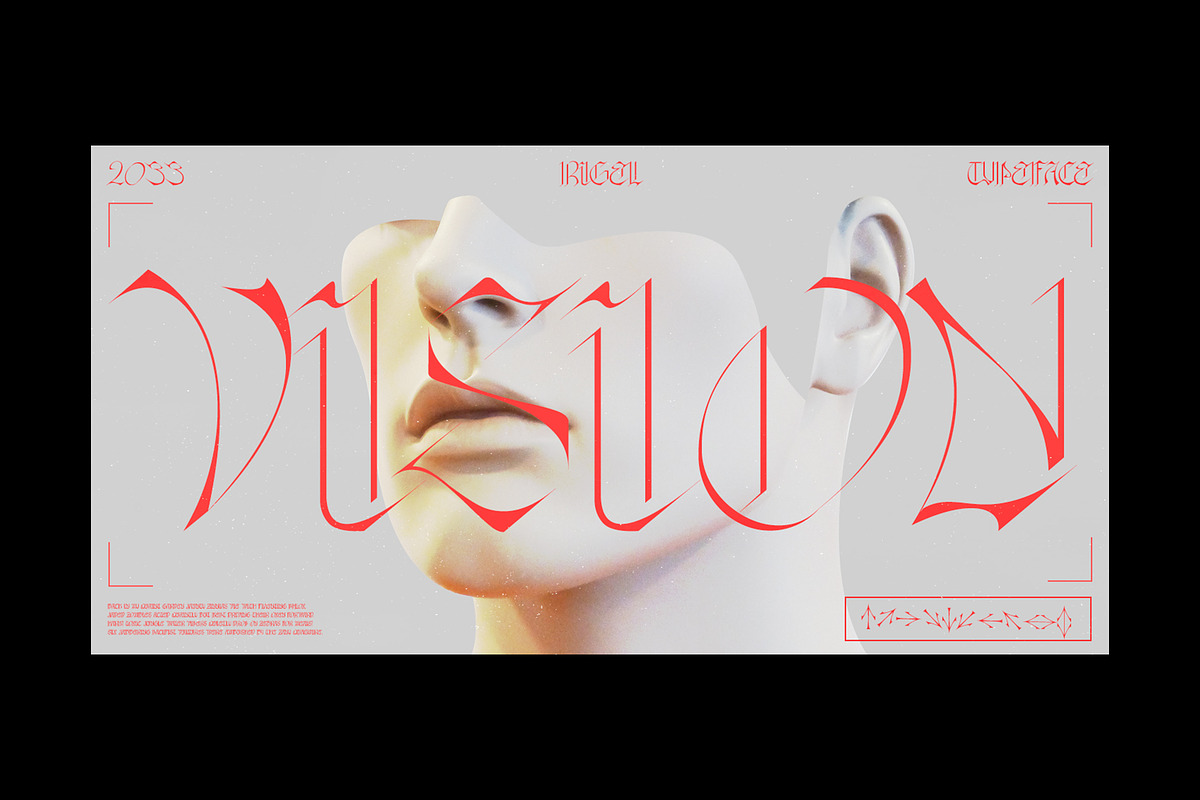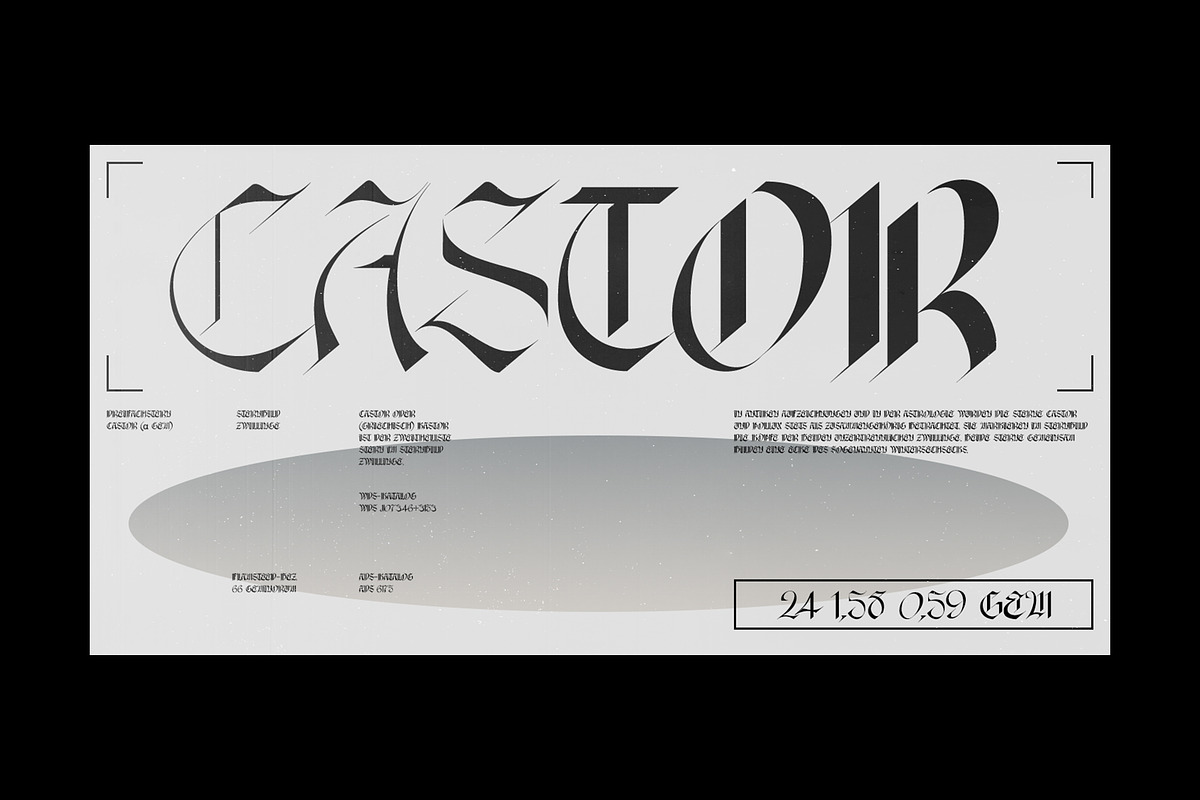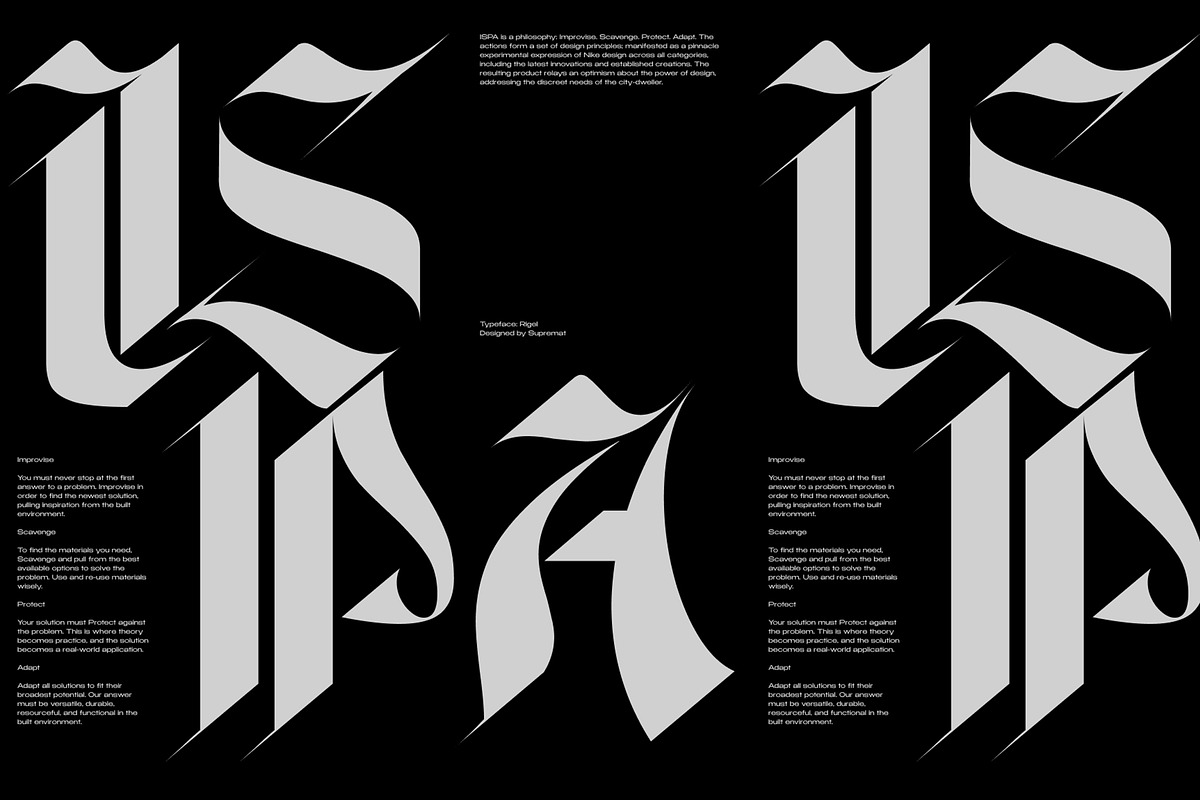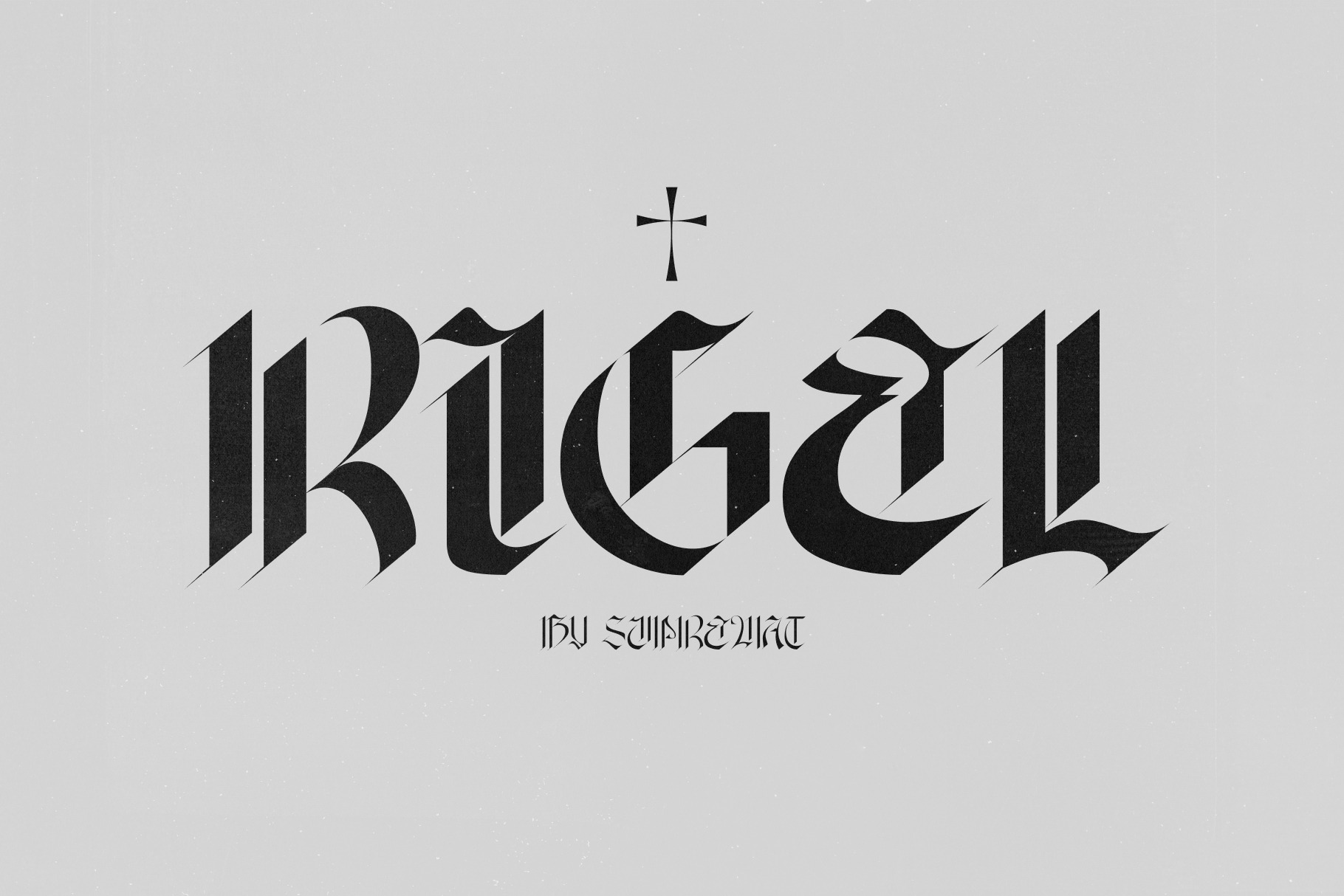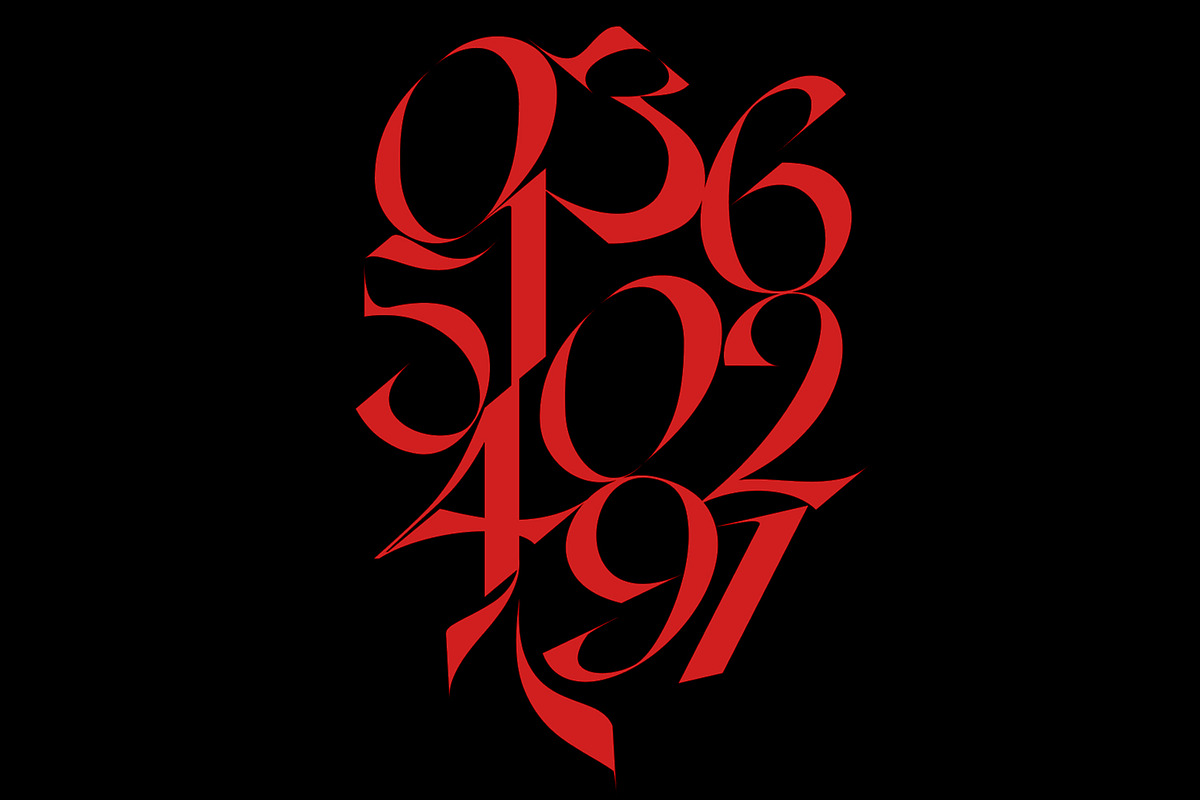
Rigel | Font Family
Rigel was inspired by one poster by American artist and illustrator Katherine Milhous. It was a poster promoting the Ephrata Cloister in 1936. The letters from the Ephrata title on this poster are very concise and expressive, reminiscent of blackletter, but have a simplified look, which looks quite fresh even today. It was very inspiring to bring this font to life.
In the process of redrawing and redesigning, the font has been slightly modified, but retained the character of those six letters from the reference poster. This is a header font consisting only of uppercase letters. It contains 6 styles from Light to ExtraBold.
Despite the fact that the font has the character of blackletter, due to simplified forms, increased contrast and sharp lines, the font looks like a modern rethinking of Gothic script and it has found a new life.
The name Rigel is taken for a reason. Rigel is a star, an blue supergiant in the constellation of Orion, and the Ancient Egyptians associated Rigel with the Sah - king of stars and patron of the dead. The human body after mummification was also seen as the embodiment of the soul. Of course, there is no direct connection between the font and Egyptian mythology, but indirectly in this way I wanted to emphasize even more the idea of incarnation, rebirth.
Rigel is good for posters, large headlines, logos and any other large font compositions.